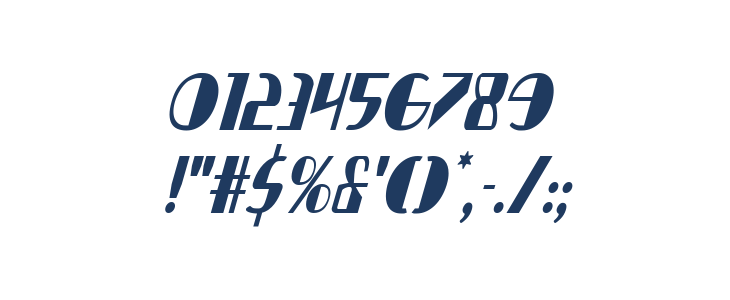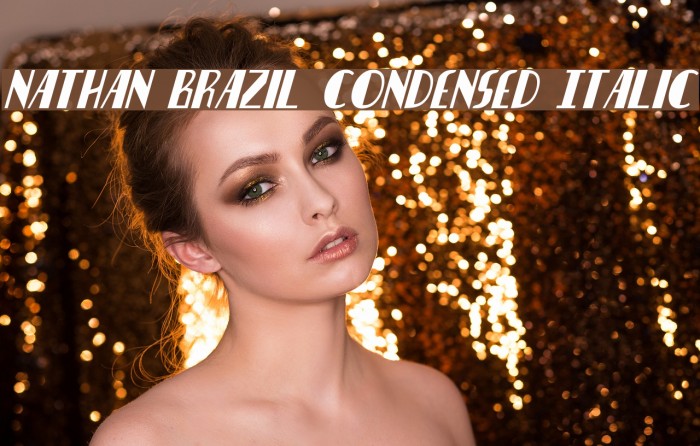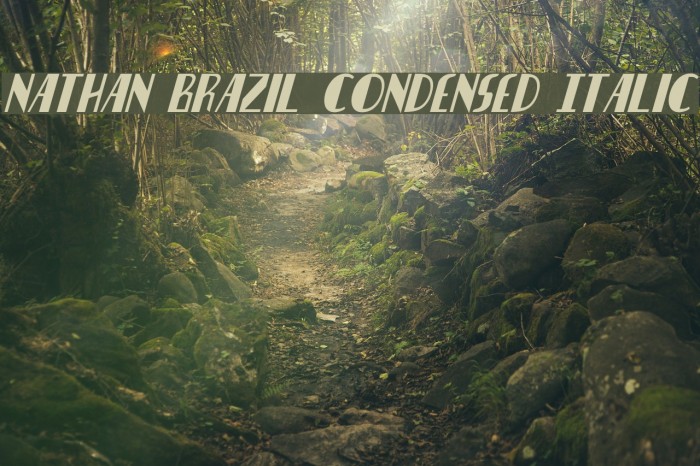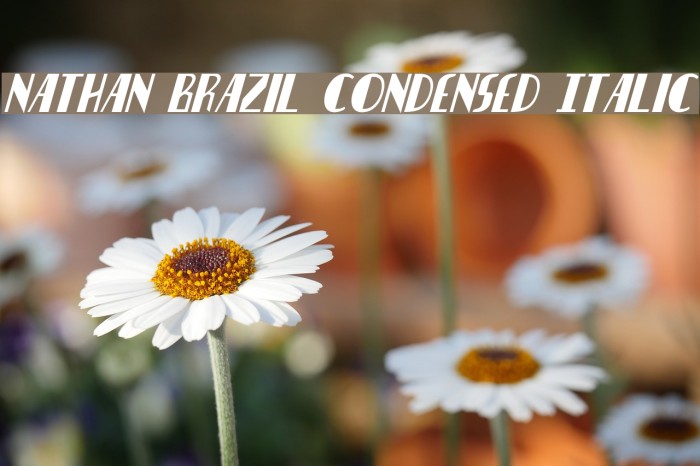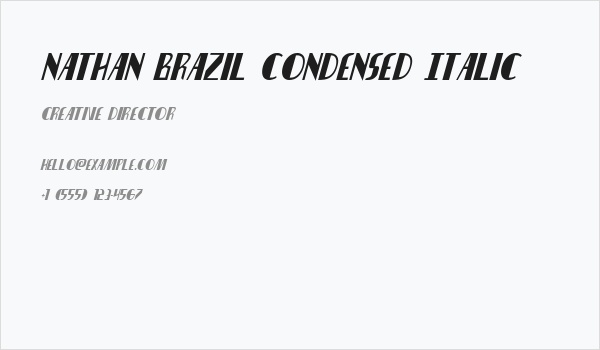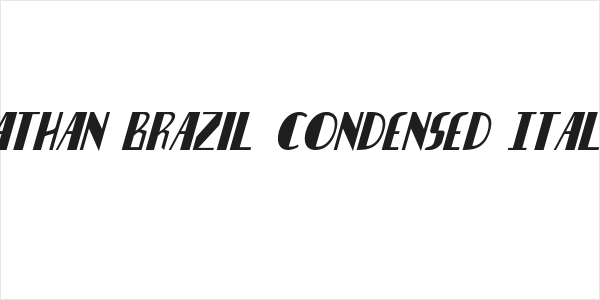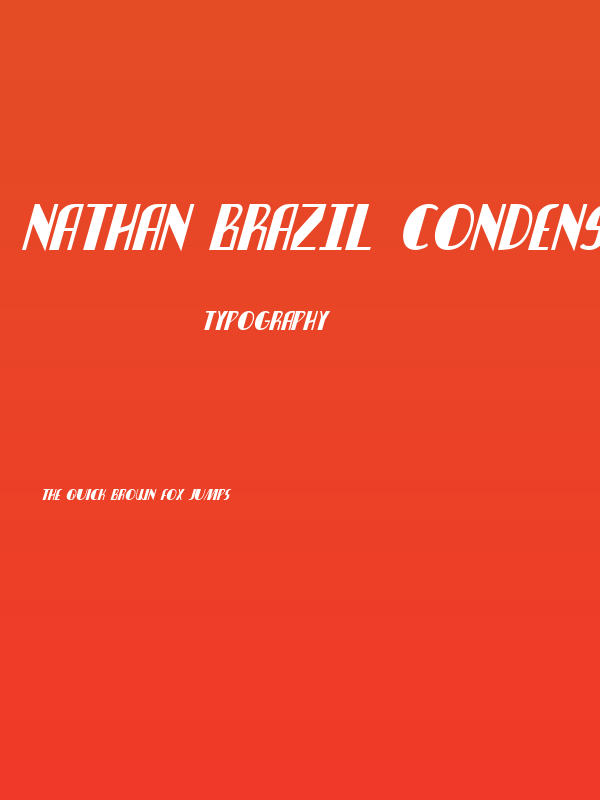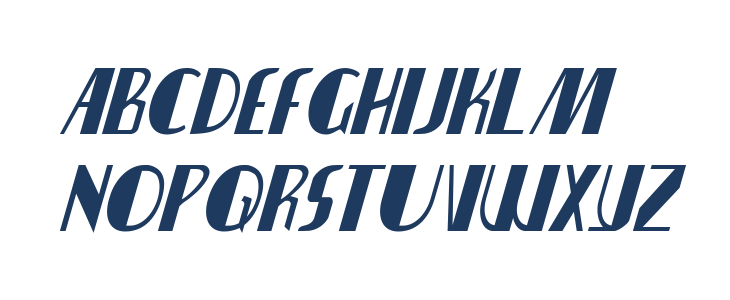
Nathan Brazil Condensed Italic Font
Nathan Brazil Condensed Italic Description
This font features a bold and dynamic style with a condensed and italicized form. The characters are sharply angled, giving a sense of motion and energy. The uppercase letters are particularly striking, with a strong presence that commands attention. The lowercase letters maintain the same dynamic quality, ensuring consistency across text. Numbers and special characters are designed with the same boldness, making them stand out. The overall design is modern and sleek, suitable for projects that require a strong visual impact.
| Proposed Projects | Ideal for branding, advertising, and headlines where a strong and energetic impression is needed. |